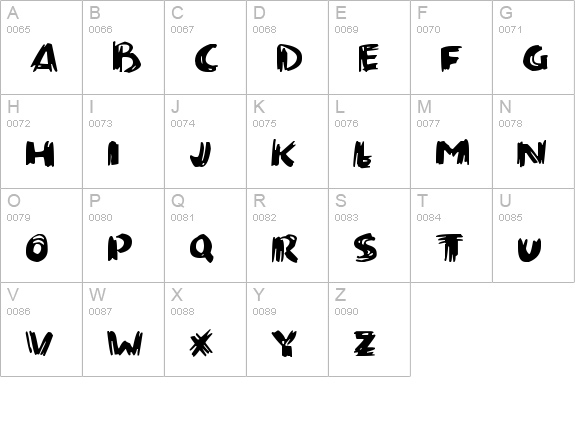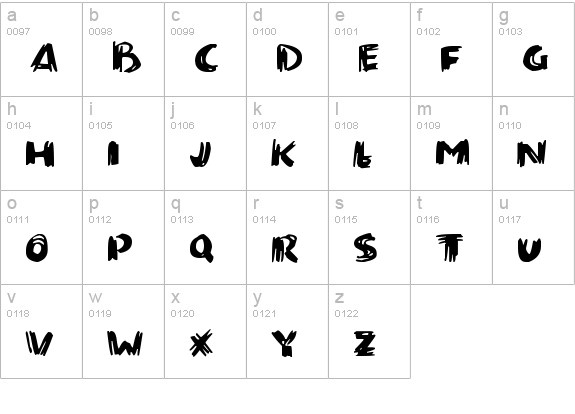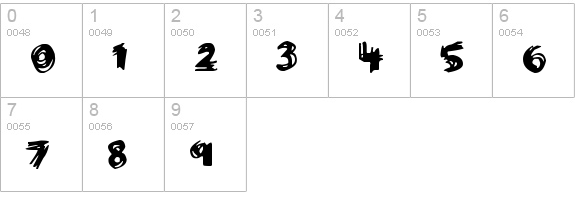
Paintbrush New Font Details
Paintbrush New is a free for personal use font in the Script > Brush category, designed by Darrell Flood. It has been downloaded 46 times and is available for Windows, Mac and Linux.
Introducing Paintbrush, a vibrant and artistic new font that will bring your designs to life with its playful and dynamic style. With its bold strokes and unique flair, Paintbrush is perfect for adding a touch of creativity to any project. Whether you're working on posters, invitations, or branding materials, this font will make a bold statement and capture the attention of your audience.